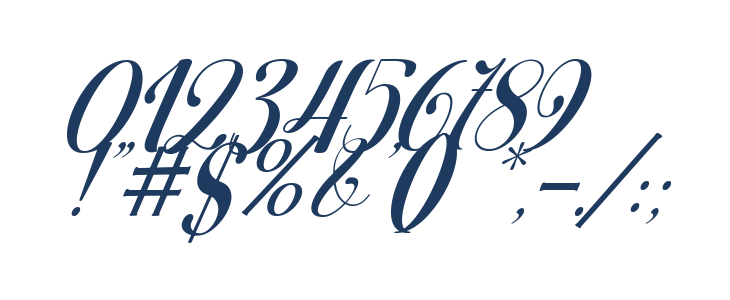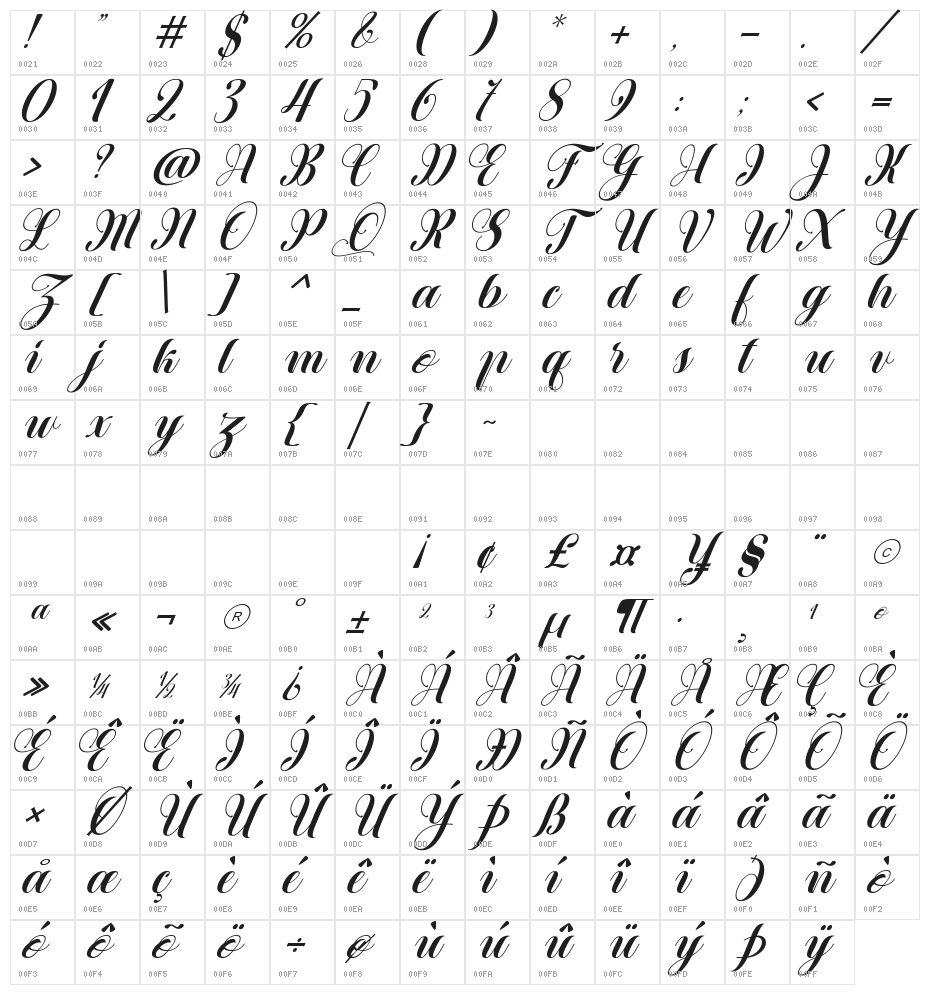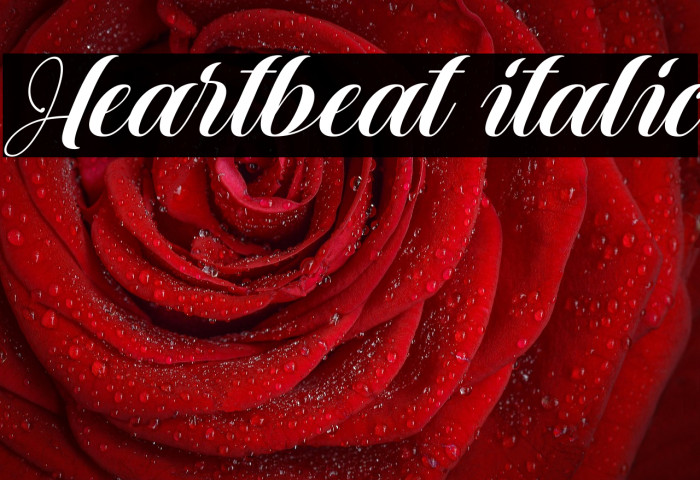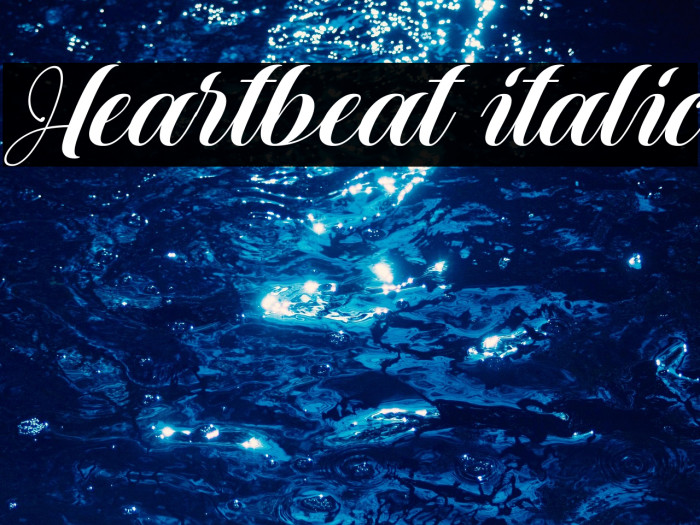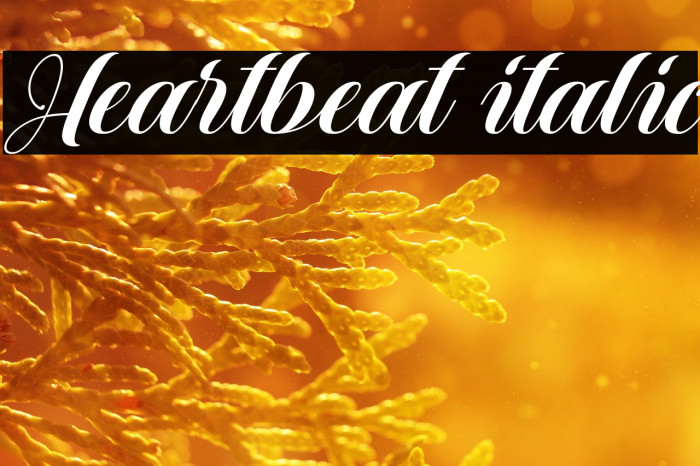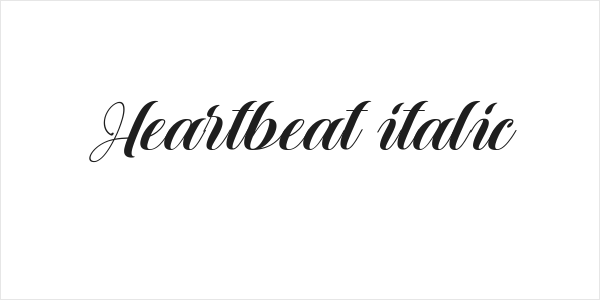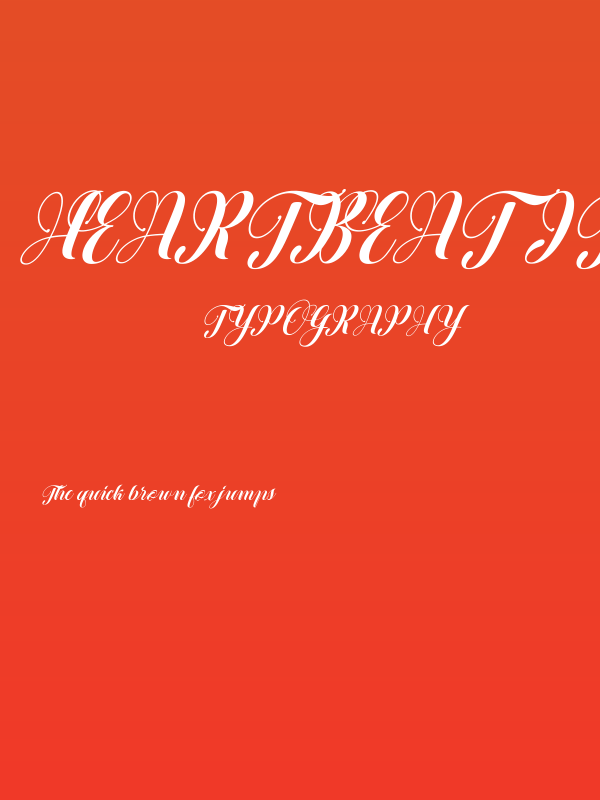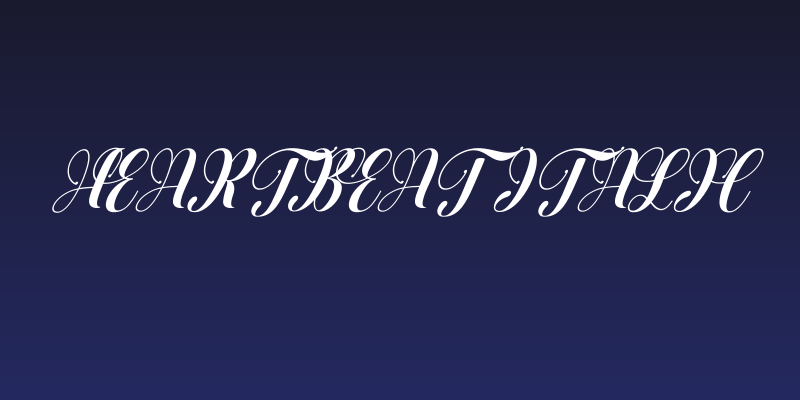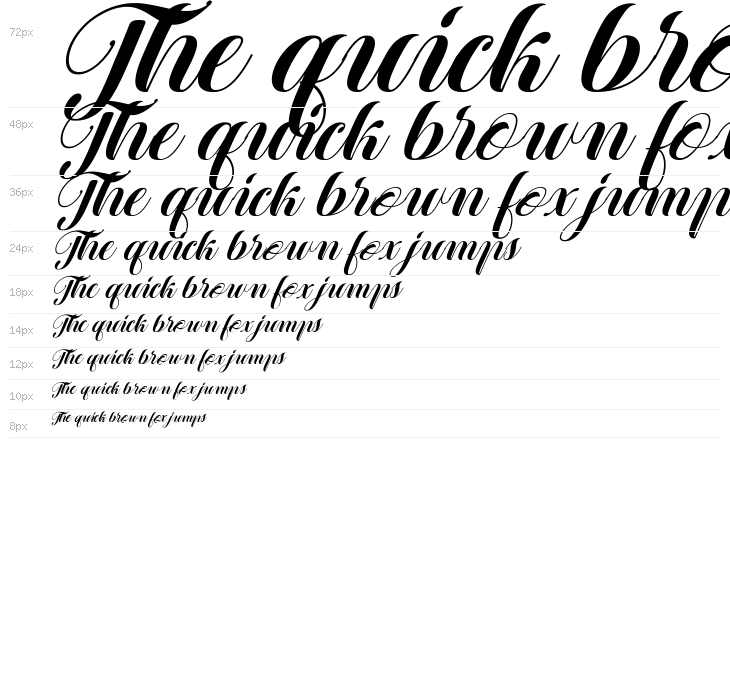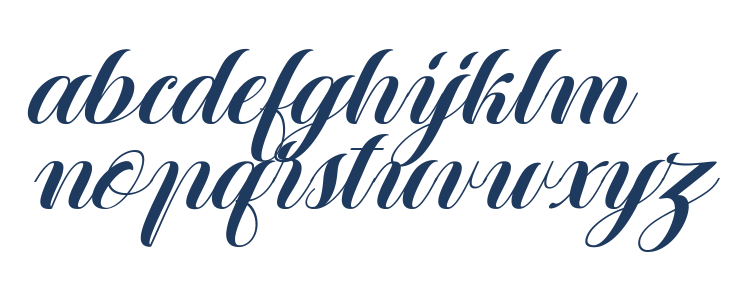
Heartbeat italic Font
Heartbeat italic Description
This font exudes elegance and sophistication with its flowing, cursive style. The letters are intricately designed with smooth, continuous strokes that give it a handwritten appearance. The uppercase letters are particularly ornate, featuring elaborate loops and swirls that add a touch of flair. The lowercase letters maintain a consistent style, complementing the uppercase with their graceful curves. Numbers and special characters are crafted with the same attention to detail, ensuring a cohesive look across all elements. This font is ideal for projects that require a personal, artistic touch.